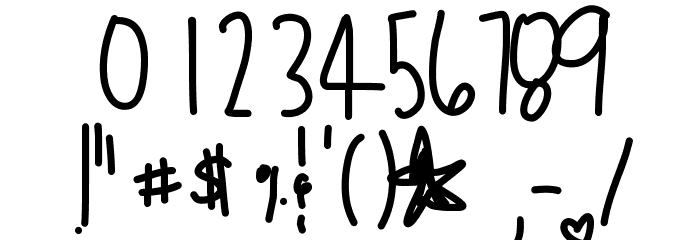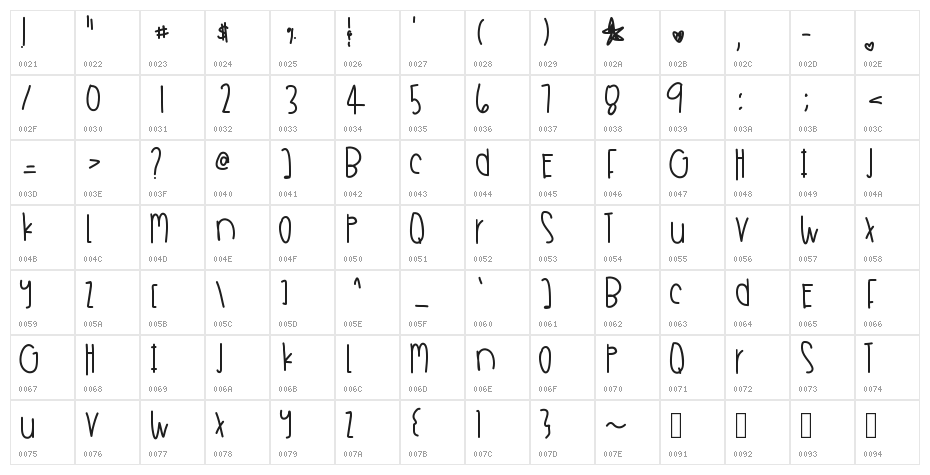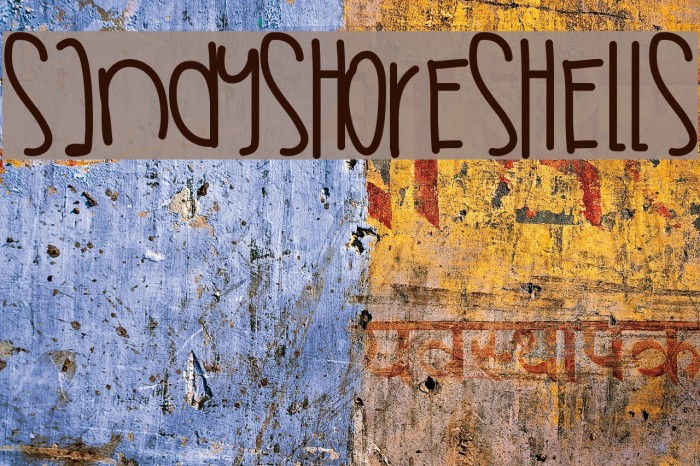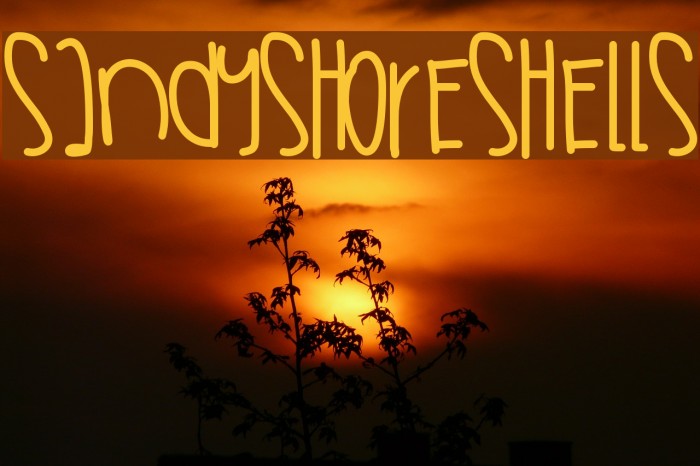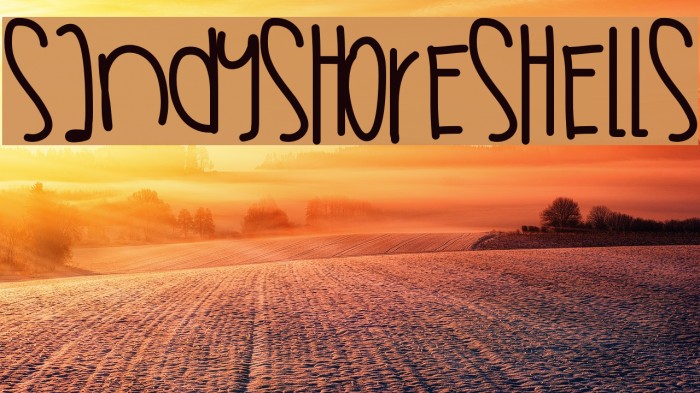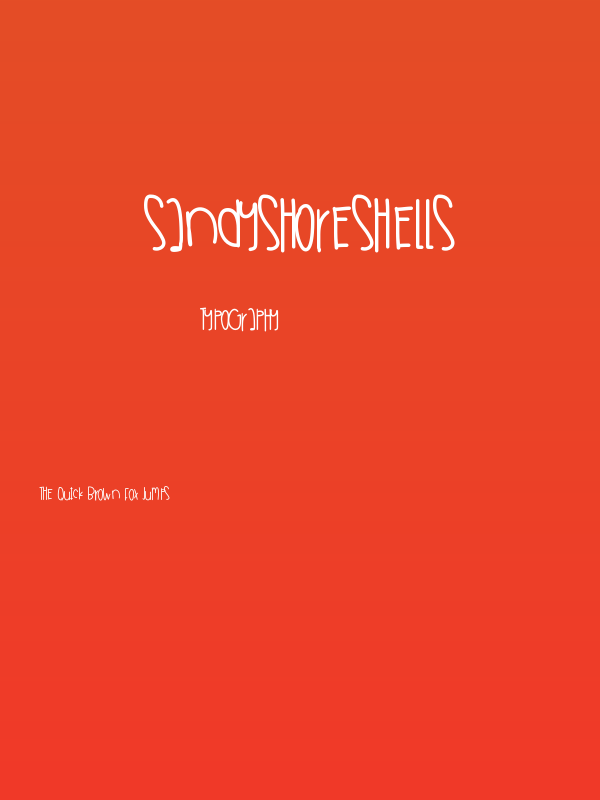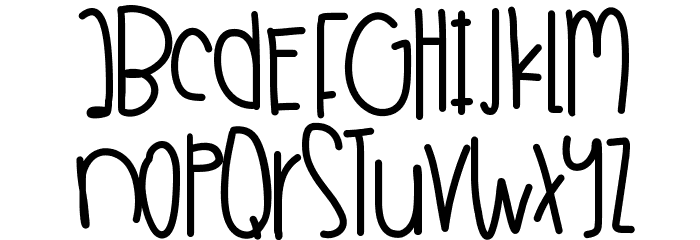
SandyShoreShells Font
SandyShoreShells Description
This playful and whimsical font features a handwritten style with a casual and friendly appearance. The letters are slightly elongated with rounded edges, giving it a soft and approachable feel. The strokes are consistent in width, providing a uniform look across all characters. The font includes both uppercase and lowercase letters, numerals, and a variety of special characters, making it versatile for different uses. Its informal style is perfect for projects that require a personal touch, such as greeting cards, children's books, or playful branding.
| Proposed Projects | Ideal for greeting cards, children's books, playful branding, and casual invitations. |